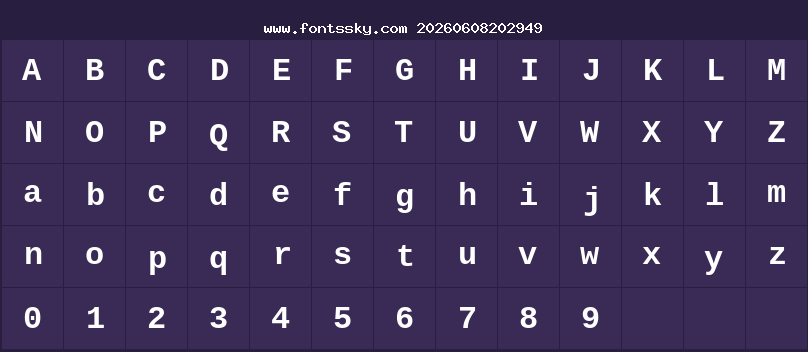
Cousine Preview
• Designer: Steve Matteson
About Cousine.ttf
Cousine.ttf is a modern, elegant sans-serif font designed for ultimate readability and visual harmony. Perfect for branding, headlines, web design, and print materials.